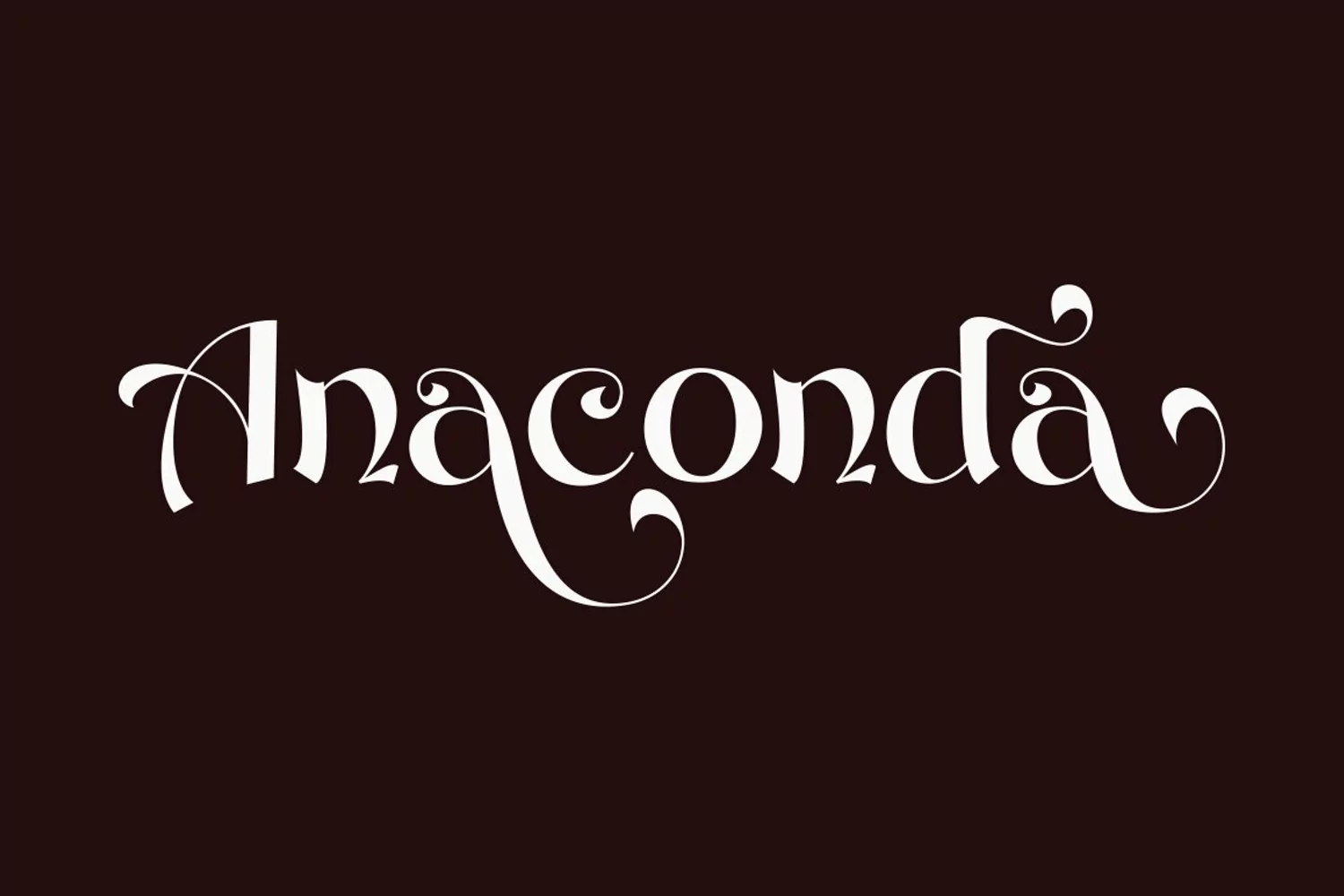
Introducing The Straihgt Serif is a bold, unique, fashionable, luxurious, modern and elegant serif with lots of ties and alternatives that will make your presentation more amazing and stand out! The Straihgt Serif also supports Multi Languages. and PUA has been coded!
This font is a versatile font and is perfect for any modern project including branding designs, logos, invitations, wedding decorations, website designs, Instagram, business cards, and more!